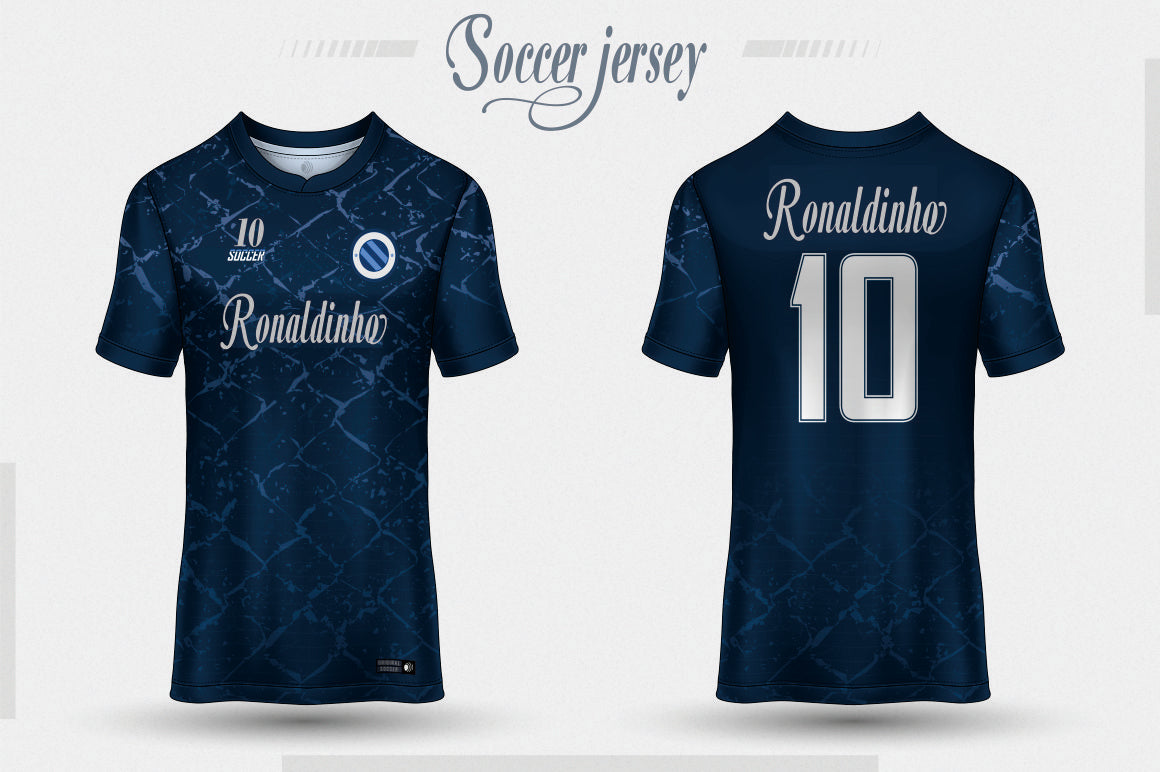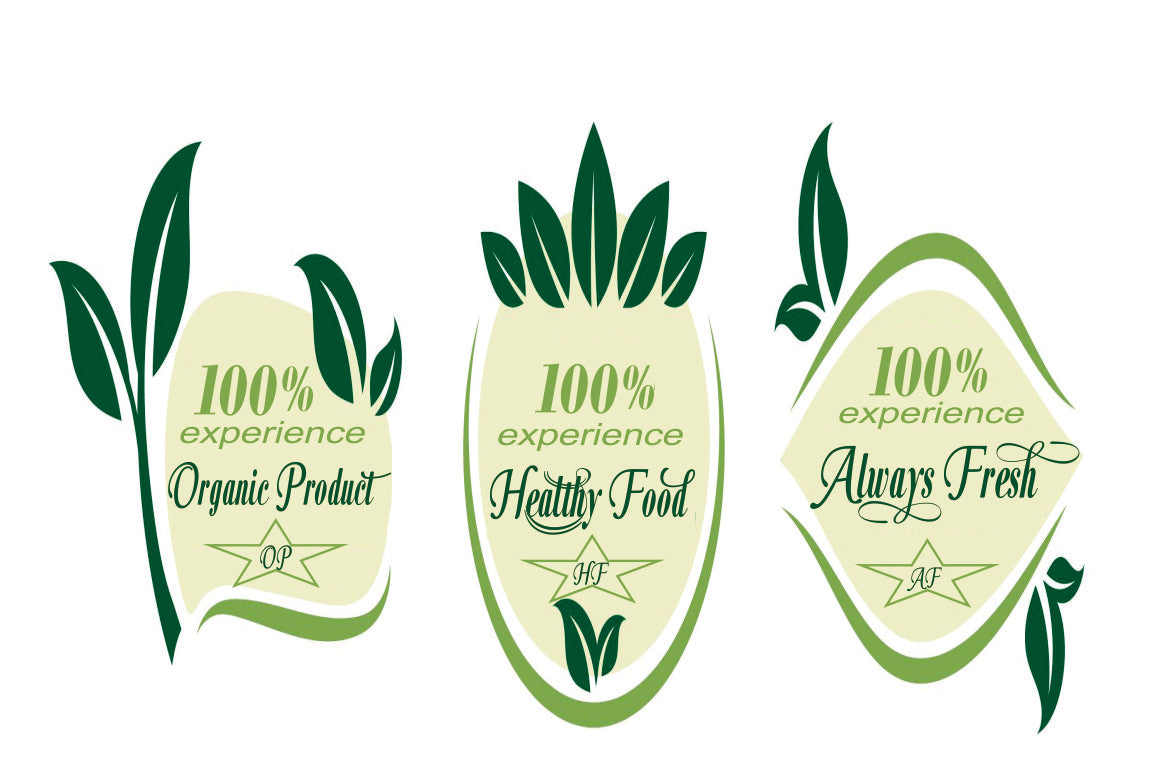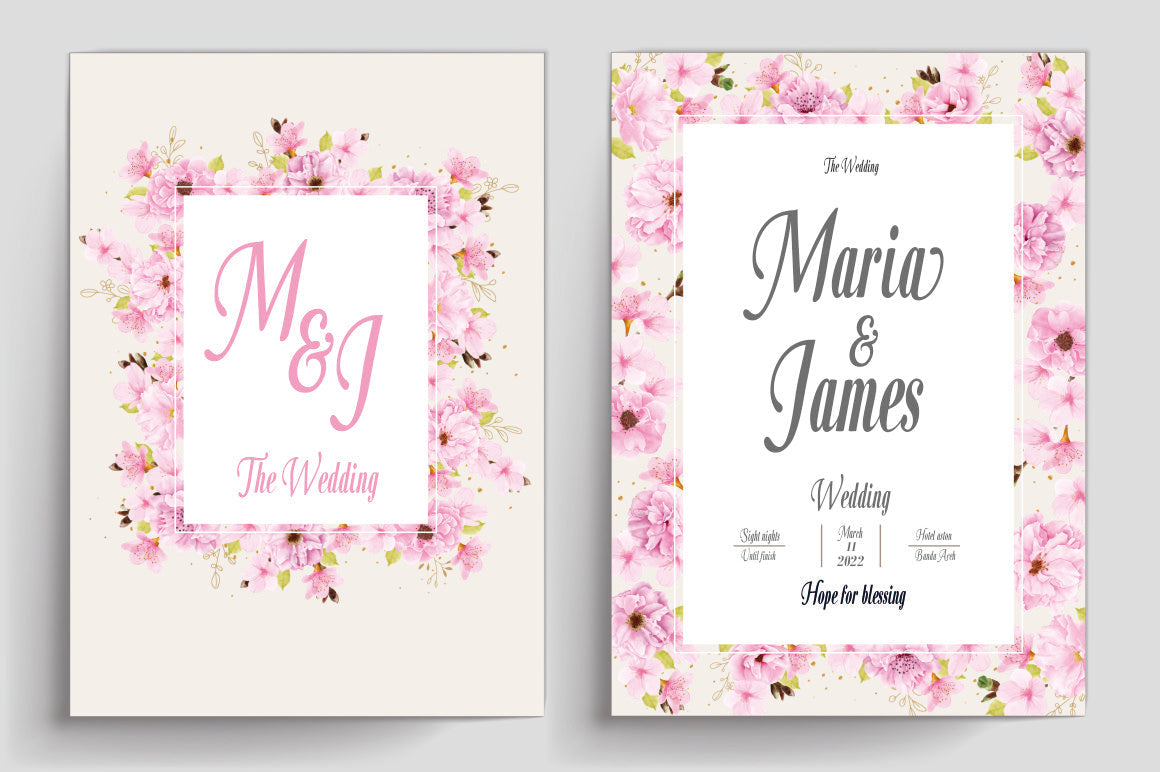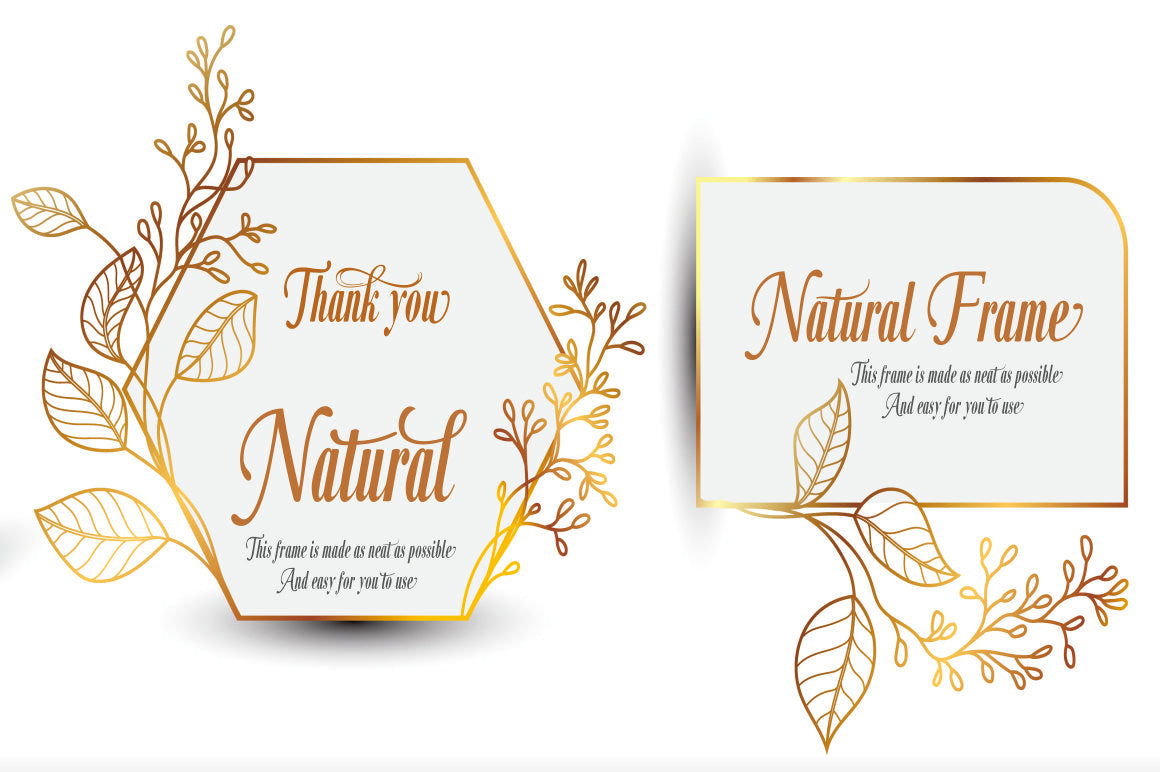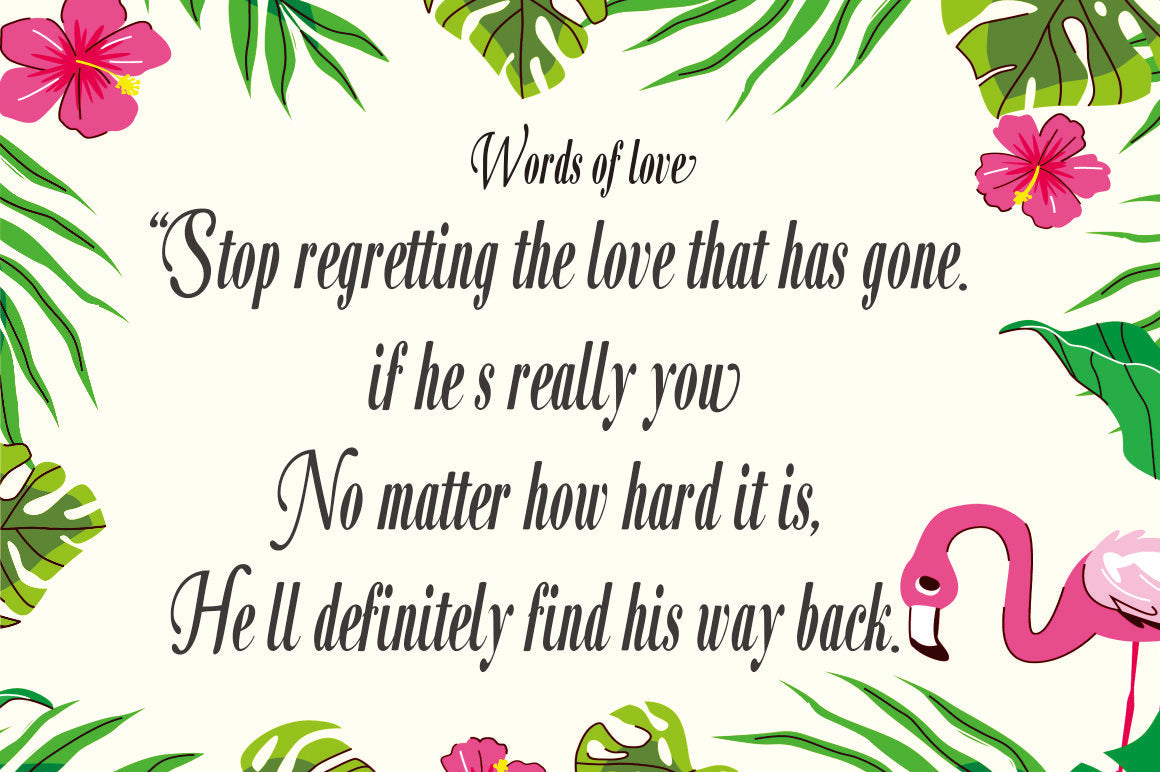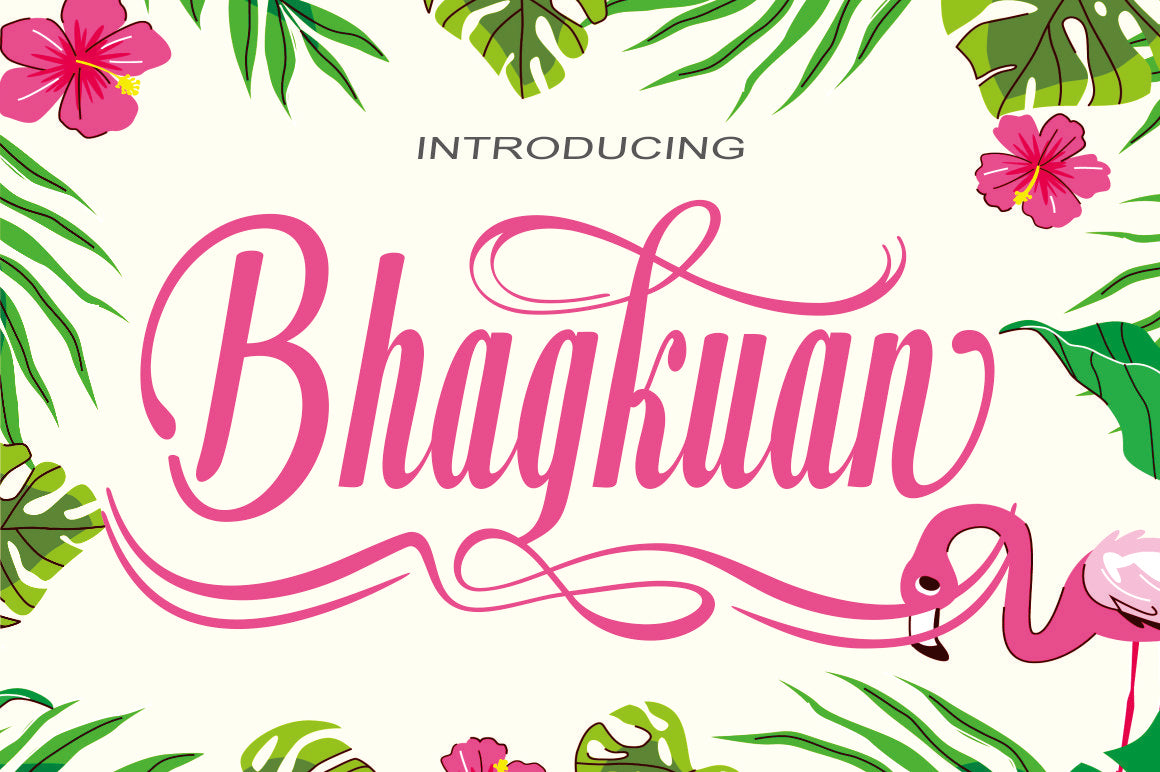
Bhankuan
About Bhankuan
Bhankuan is a romantic typography.elegant & fun vintage script font. Can be used for various purposes. such as logo, wedding invitation, t-shirt, letterhead, signboard, news, poster, badge etc. http://s28.postimg.org/7osts7ezx/All_Glyphs.jpg To enable the OpenType Stylistic alternative, you need a program that supports OpenType features such as Adobe Illustrator CS, Adobe Indesign & CorelDraw X6-X7. http://youtu.be/iptSFA7feQ0 There are additional ways to access alternatives/swashes, using the Character Map (Windows), Nexus Font (Windows), Font Book (Mac) or a software program such as PopChar (for Windows and Mac). How to access all alternative characters, using the Windows Character Map with Photoshop: https://www.youtube.com/watch?v=Go9vacoYmBw Thank you!